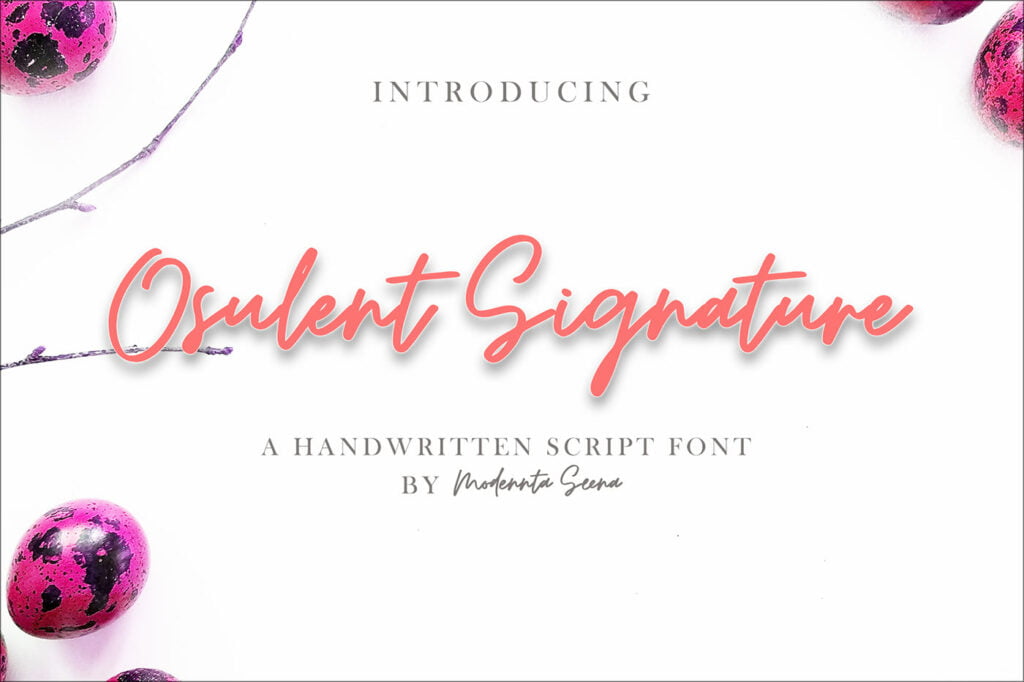
Osulent Signature Font
Osulent Signature is a high quality Handwritten font that is designed by Ink creative and is available for free download and personal use. The free version provides all uppercase and lowercase letters and a few special characters too.